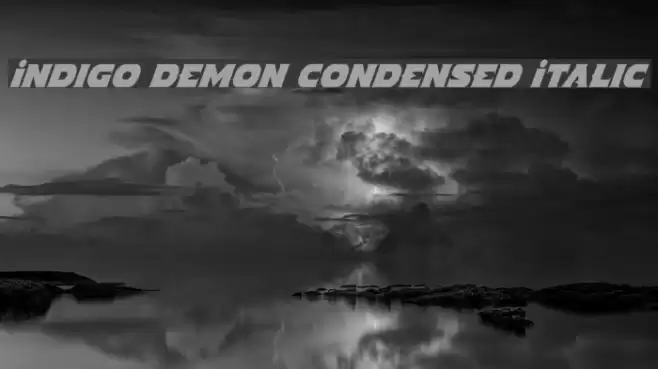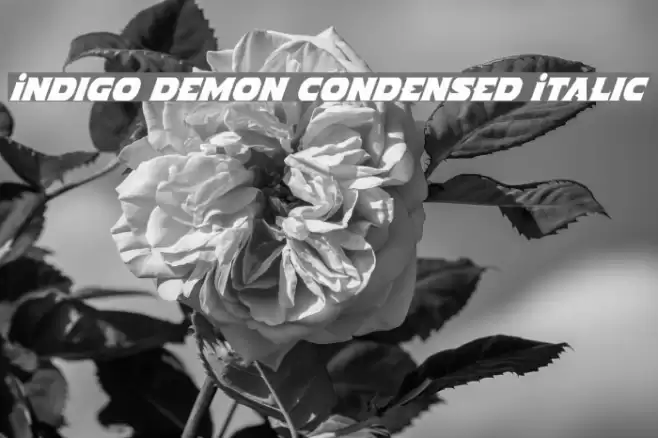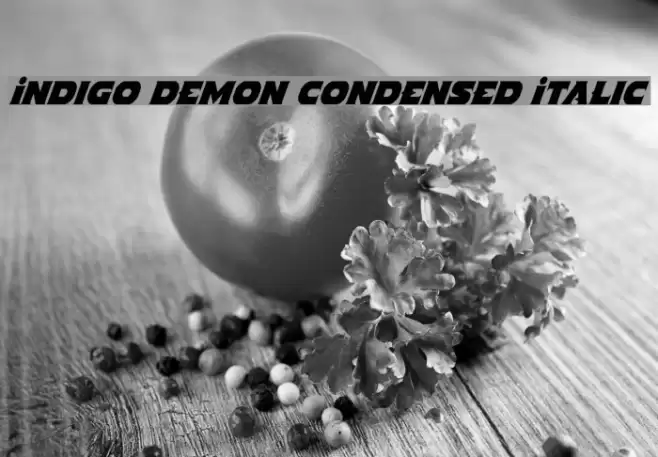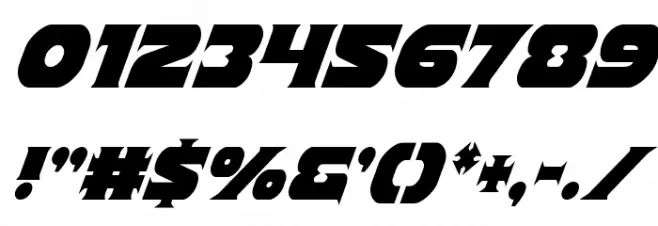
Indigo Demon Condensed Italic Font
Indigo Demon Condensed Italic Description
This font features a bold and dynamic style with a condensed structure and italic slant. The characters are designed with sharp angles and a strong presence, making them stand out in any design. The uppercase and lowercase letters maintain a consistent style, with a slight forward tilt that adds a sense of motion and urgency. The numbers and special characters follow the same bold and angular design, ensuring uniformity across all elements. The font's condensed nature allows for efficient use of space, making it ideal for headlines and impactful statements.
A bold, condensed, and italic font with sharp angles and a dynamic style from Modern fonts.
- Proposed Projects: Ideal for sports branding, action movie posters, dynamic advertising, and edgy graphic design projects.
- Width: Condensed
- Character Spacing: Tight
- Contrast: High